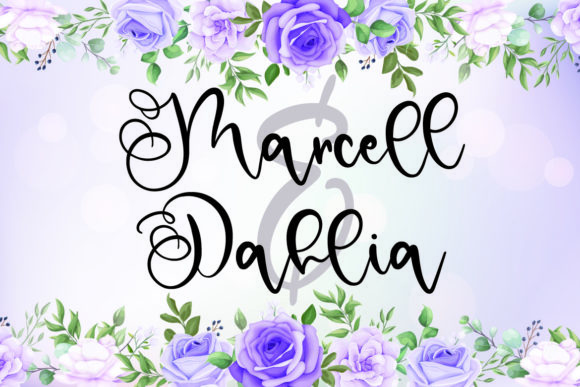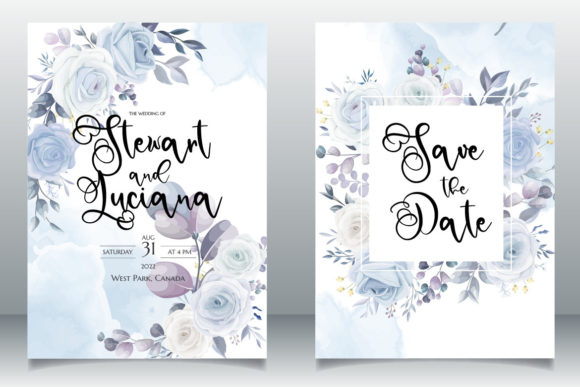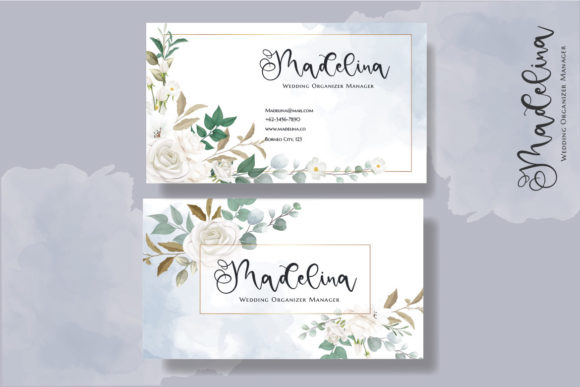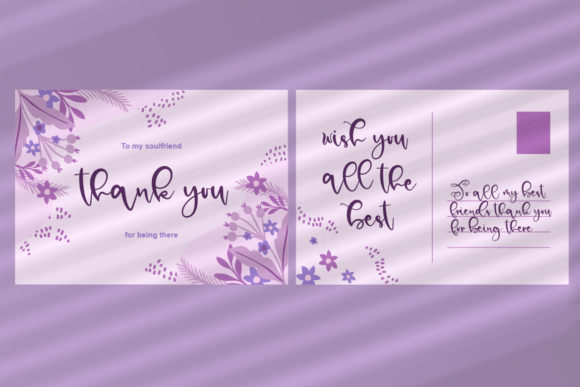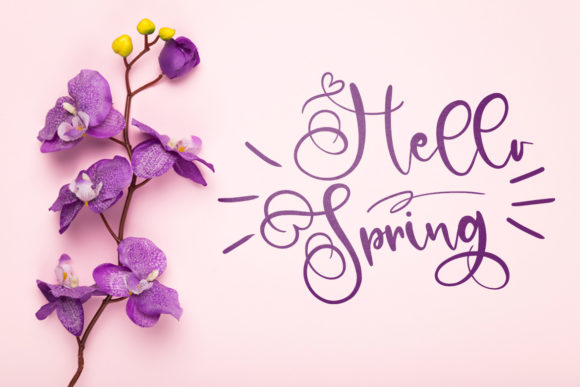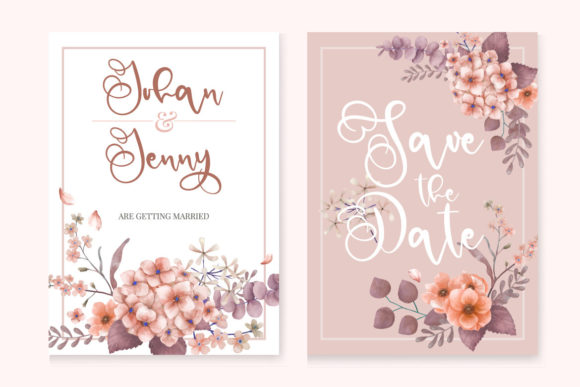
Introduction to Gohye Font Font
Fonts play a crucial role in design, and the Gohye Font font is a typeface that brings both character and versatility to any project. Whether you’re working on a branding project, a website, or a print design, the Gohye Font font offers a unique style that can elevate your work.
Gohye is a chic, refined script font that emanates sophistication and elegance.
Its stylish alternates and ligatures make this font the perfect match for any project .
Key Features of Gohye Font Font
Why Choose Gohye Font Font?
The Gohye Font font is more than just a typeface – it’s a design tool that helps you communicate your message with style and clarity. Its unique character set and versatile design make it suitable for a wide range of applications, from elegant invitations to bold headlines.
With its carefully crafted letterforms and balanced proportions, the Gohye Font font ensures readability and visual appeal across all mediums.
What makes Gohye Font font special?
The Gohye Font font stands out with its unique design, exceptional readability, and versatility across various design applications.